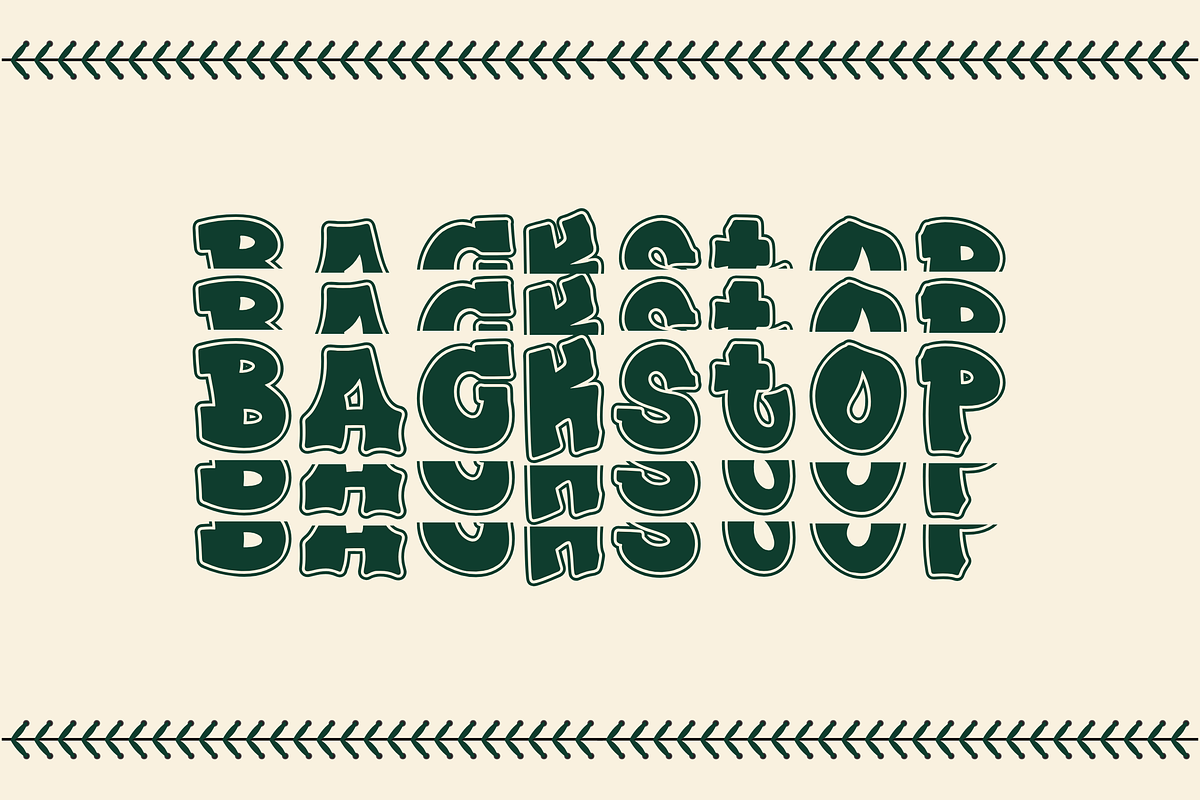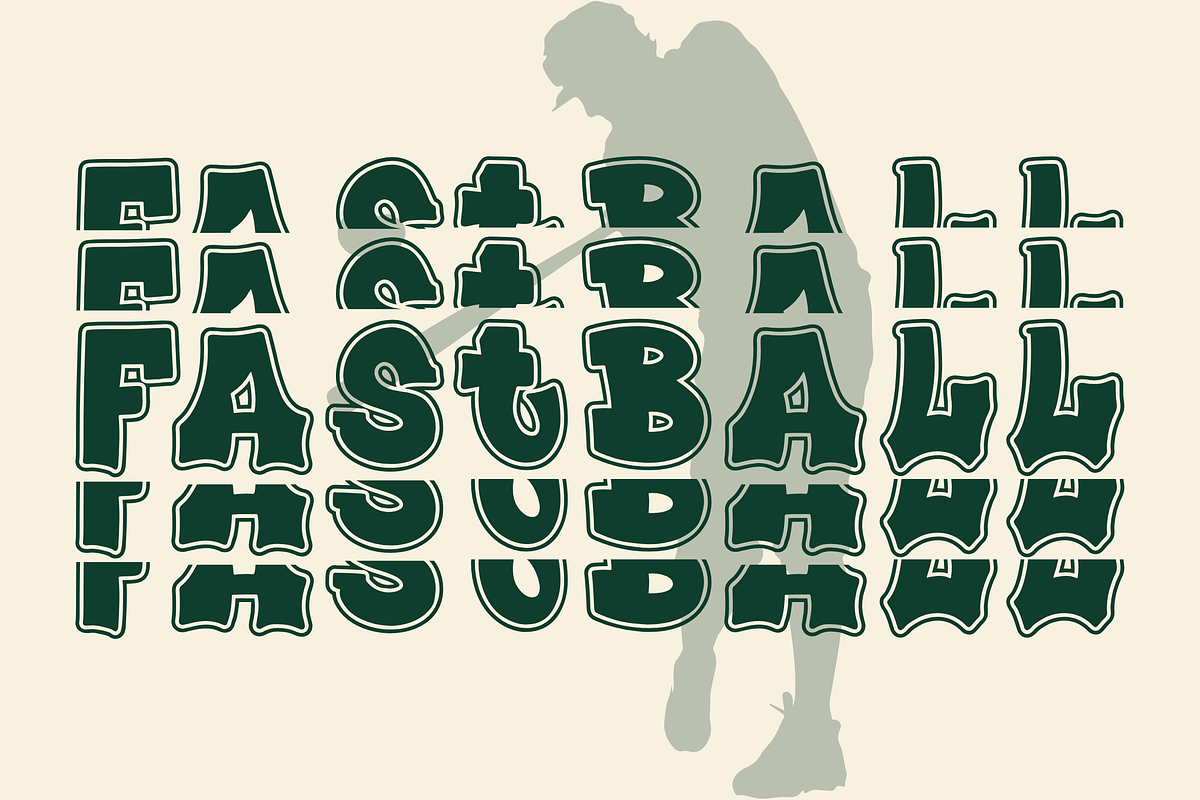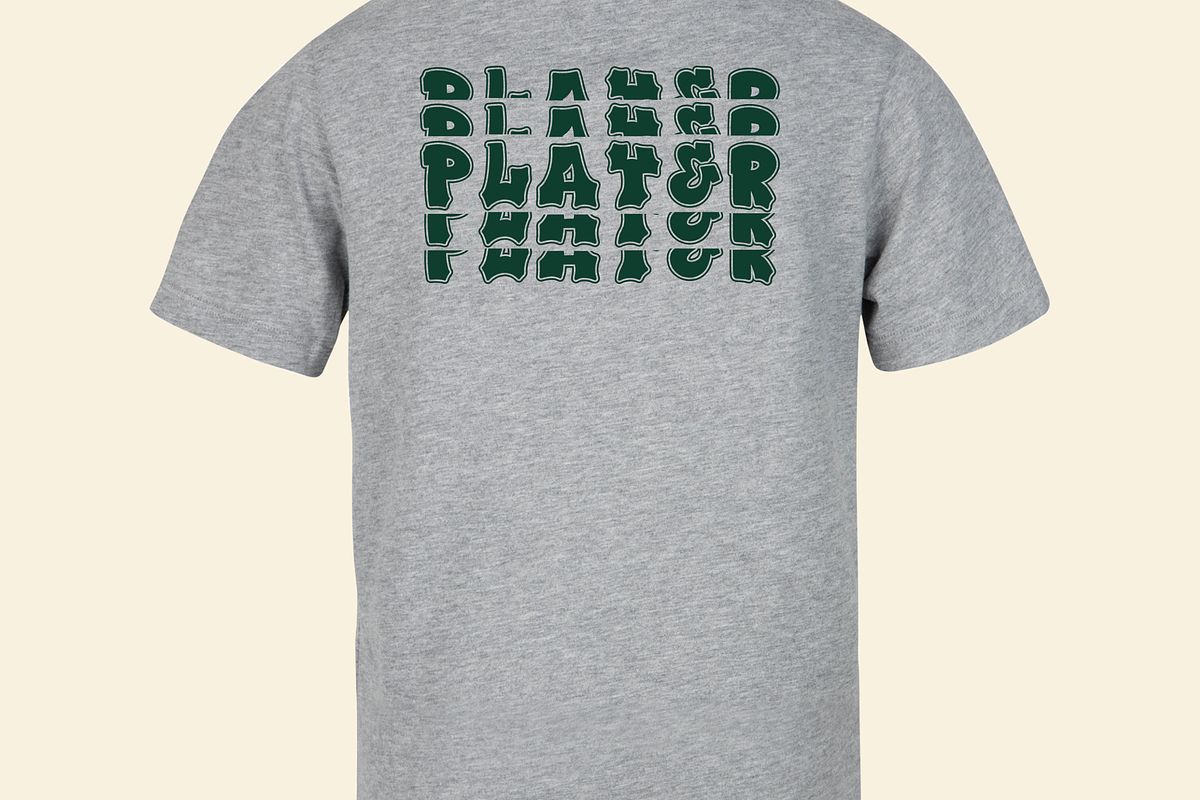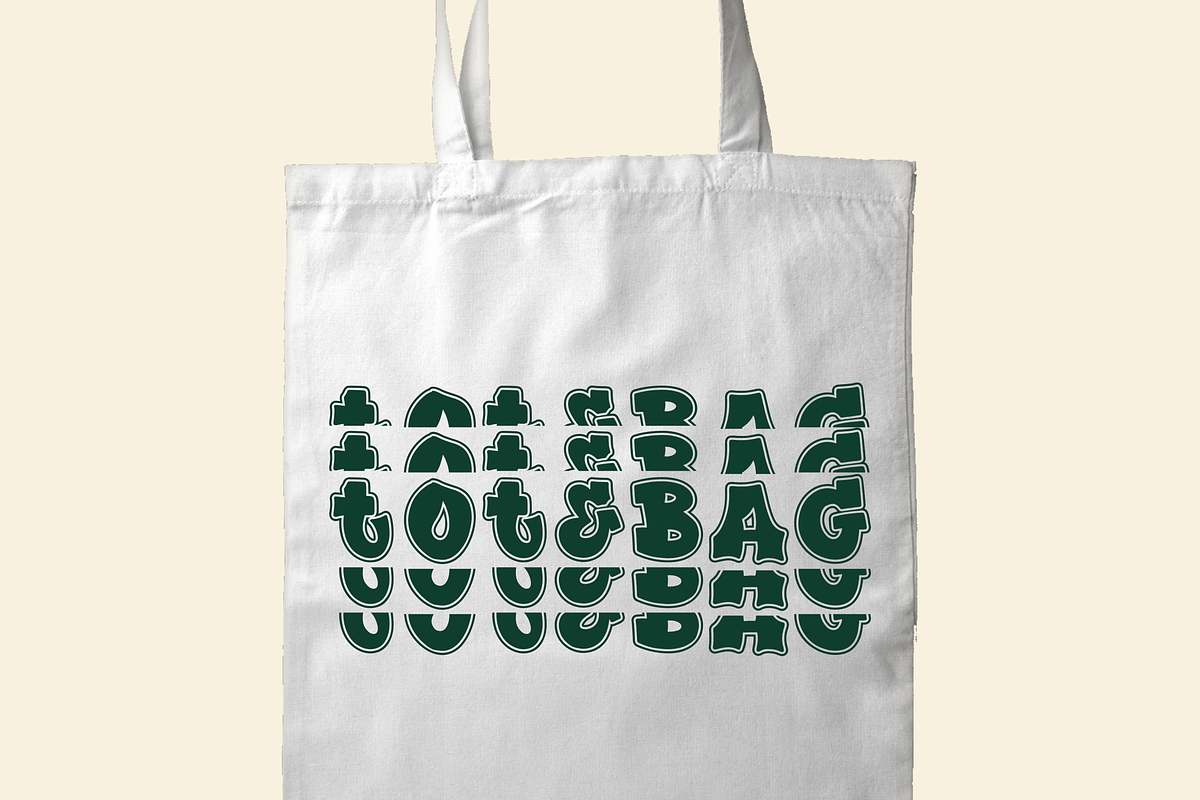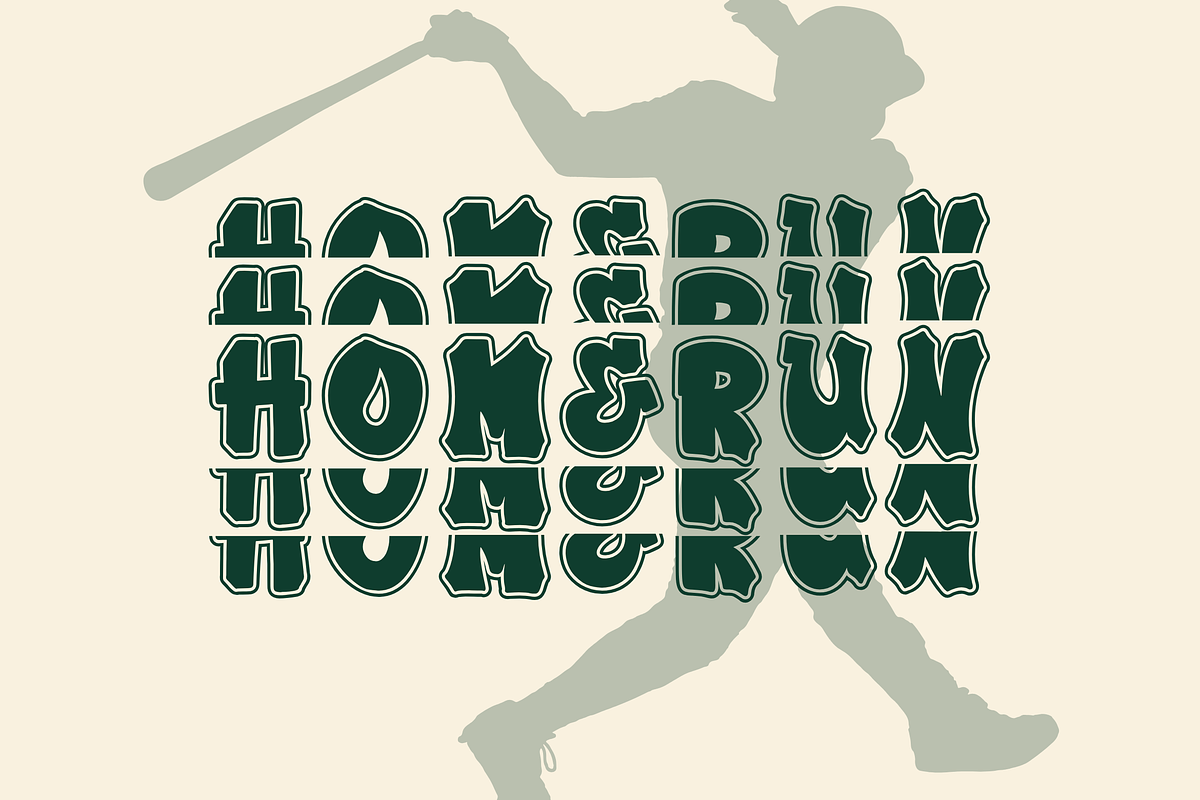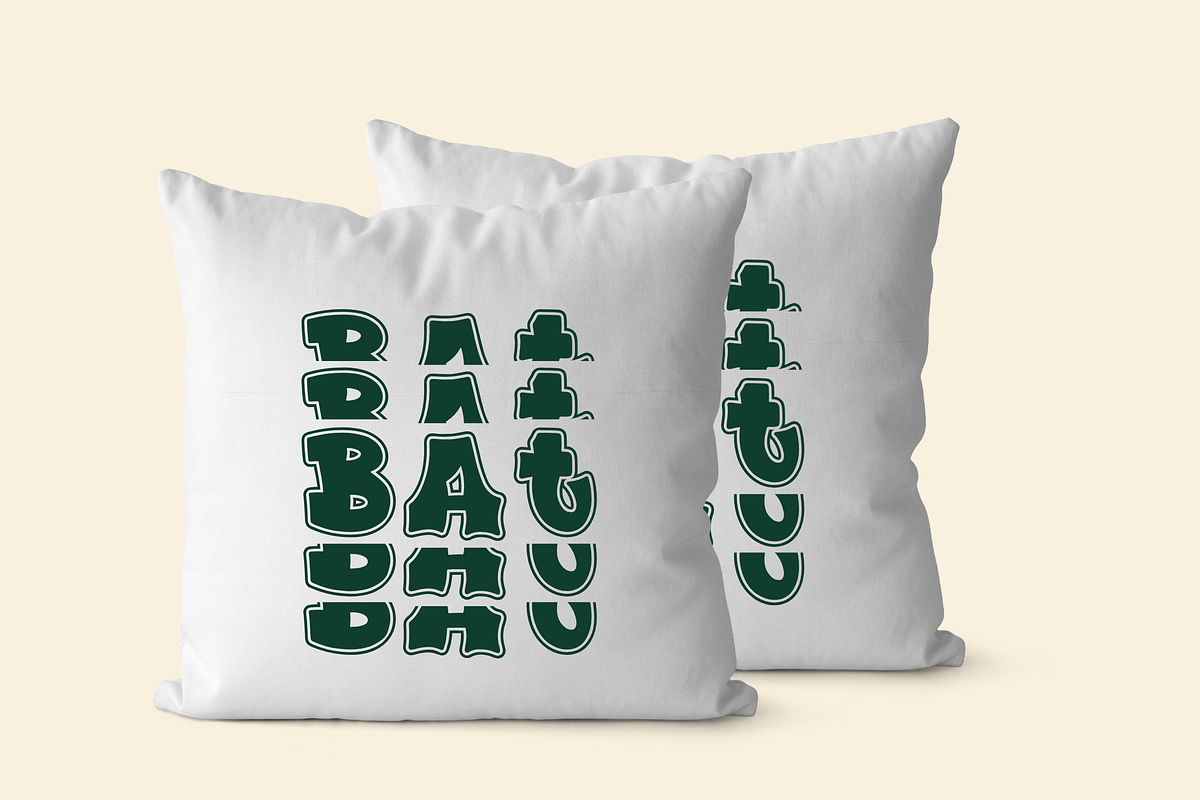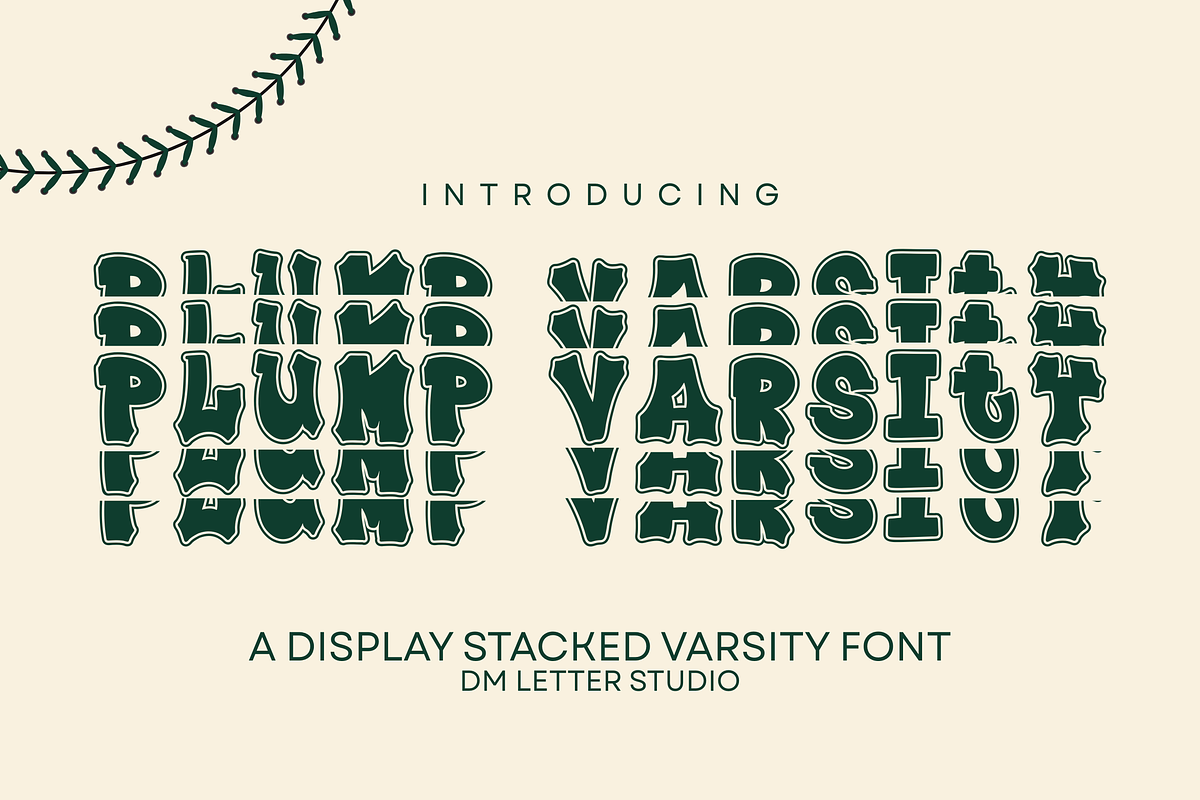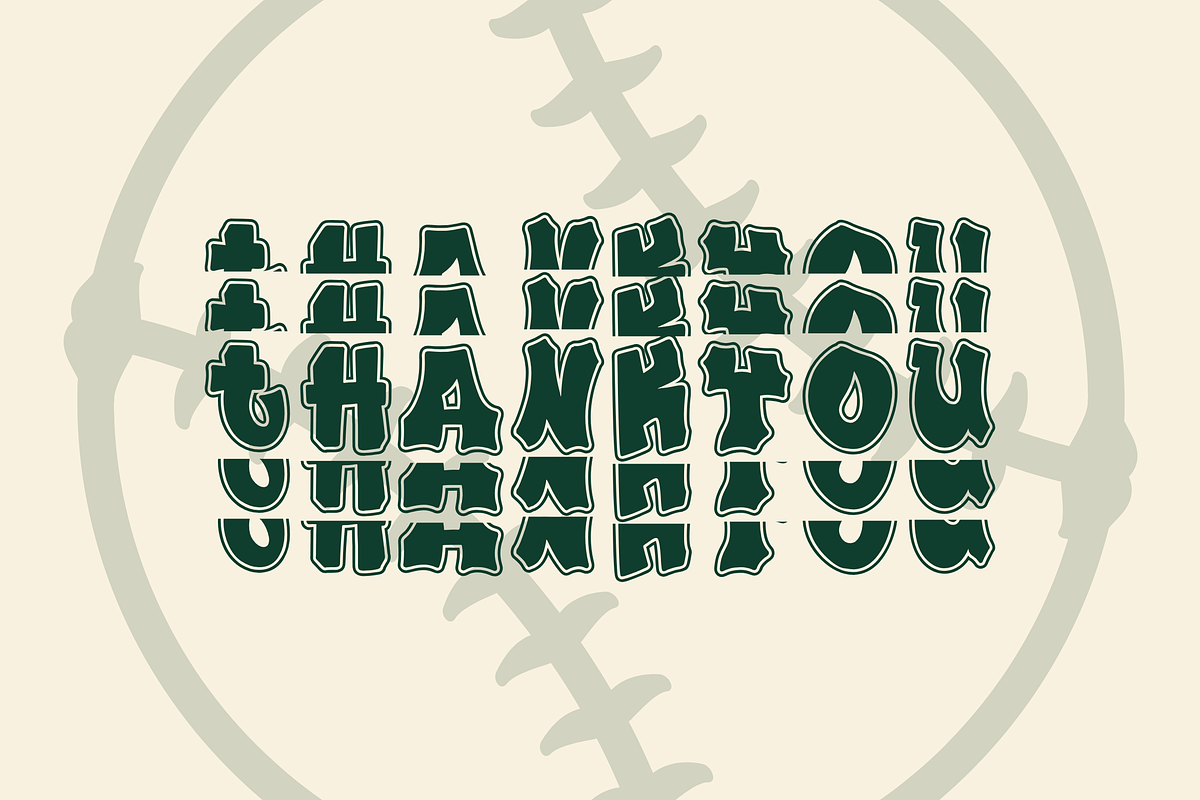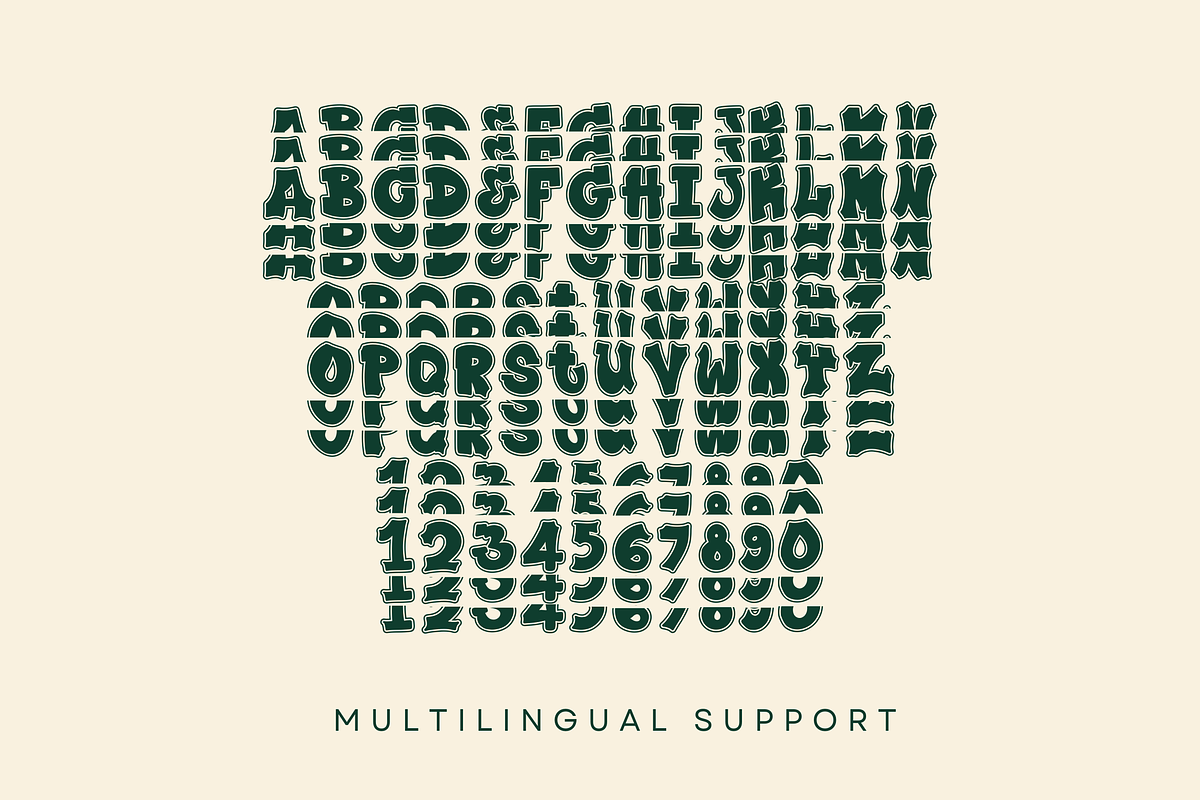
Plump Varsity Stacked
Meet Plump Varsity Stacked, the Display Font
Plump Varsity Stacked is a bold collegiate display font with a chunky stacked effect that gives your words instant depth. It brings classic campus energy, but with a softer “plump” shape that feels friendly and modern. Because the letterforms stay wide and open, it remains readable on small stickers and labels while looking powerful on big banners and merch. Use it for team designs, school projects, sports logos, jersey-style titles, stickers, posters, packaging, and social promos. As a result, your designs look instantly athletic and high-impact.
Why Plump Varsity Stacked sells
Fast layouts with the Plump Varsity Stacked font
Start with a short headline in Plump Varsity Stacked and keep it punchy. After that, add a year, number, or location in a simple supporting font to keep details readable. Because varsity designs love structure, try arches, stacked lines, and badge shapes. In addition, outlines and soft shadows help the stacked effect stand out on darker backgrounds. Finally, save palette pairs like navy & cream, red & white, forest & gold, or black & silver to repeat across your product line.
Creative uses and quick wins
Team logos, jersey titles, and school spirit designs
Sticker packs, labels, and packaging fronts
Posters, event banners, and sports promos
Merch slogans for tees, hoodies, and totes
Stacked varsity letterforms for instant depth
Curves tuned for clean print and high-res exports
Design tips for Plump Varsity Stacked
Keep phrases short so the stacked look stays strong. Also, increase tracking slightly for all-caps titles to keep spacing clean. For cutting vinyl, go larger so stacked edges stay crisp. Finally, export at 300 DPI for print and at 2× size for web so everything stays smooth.